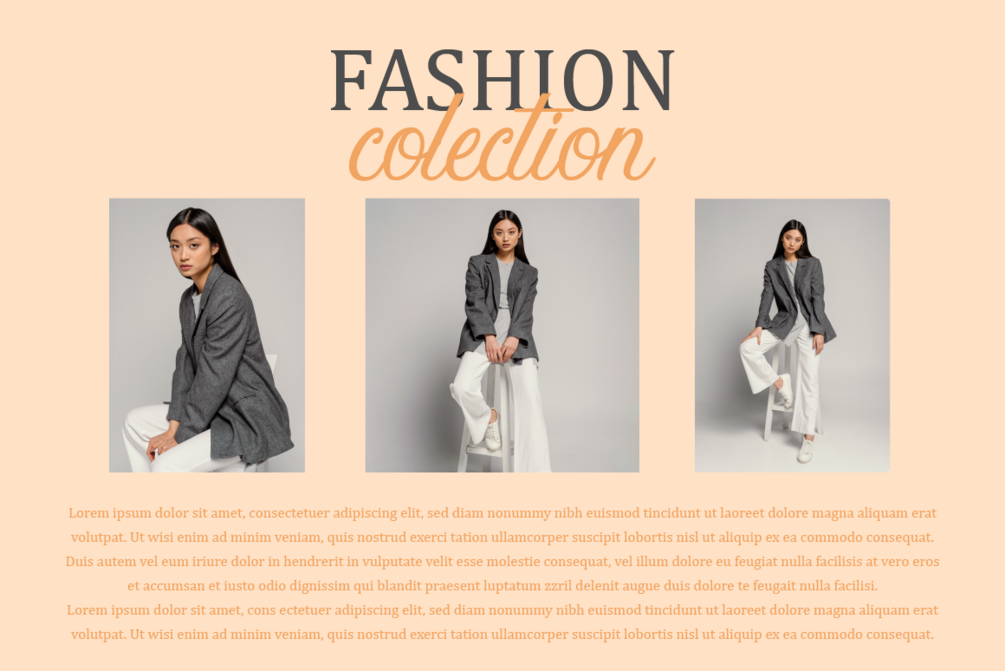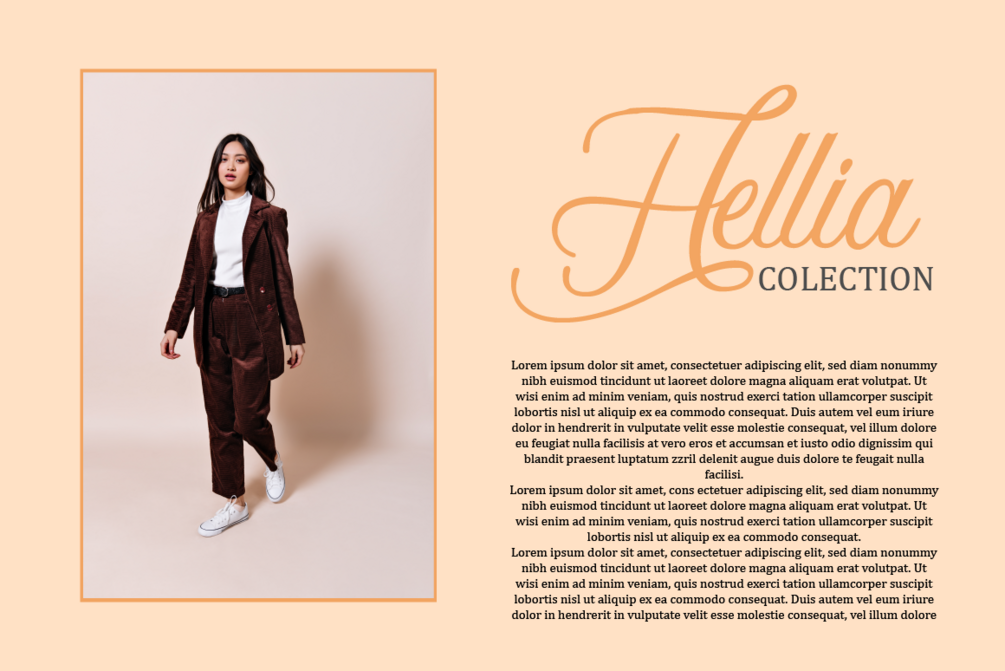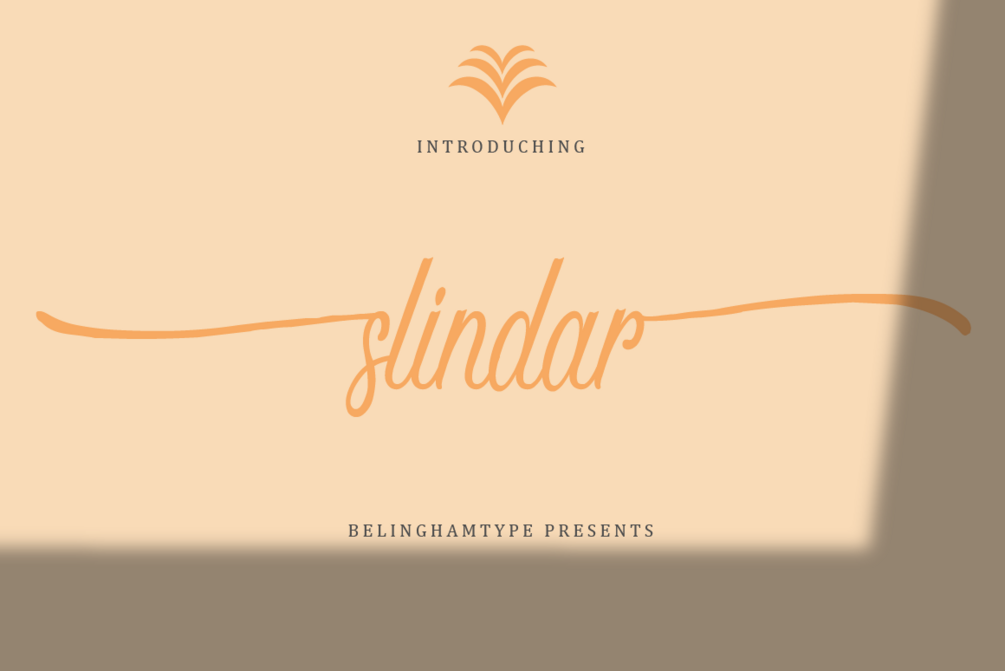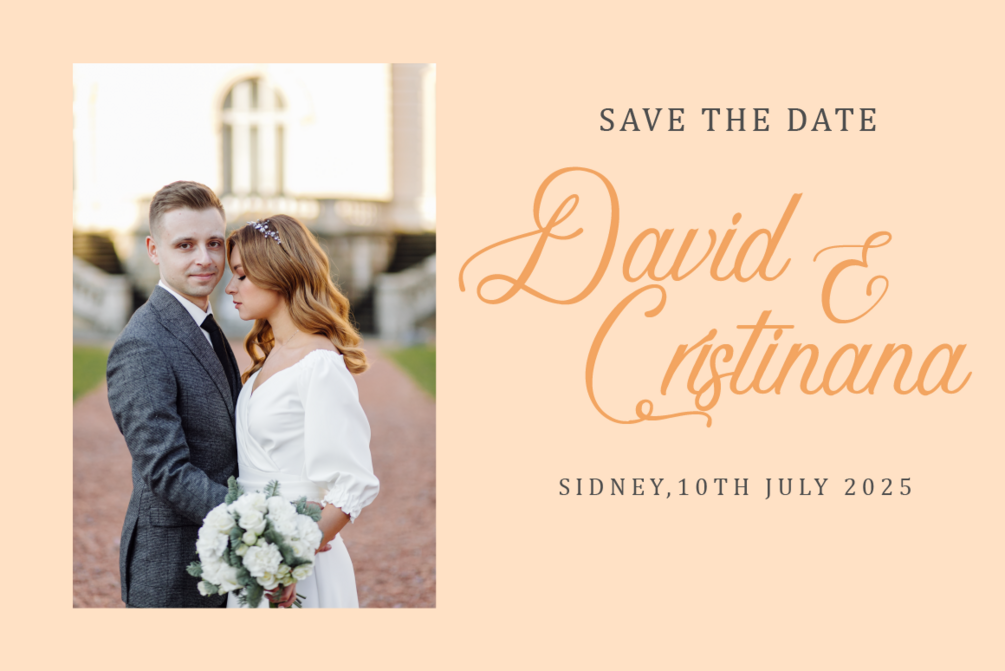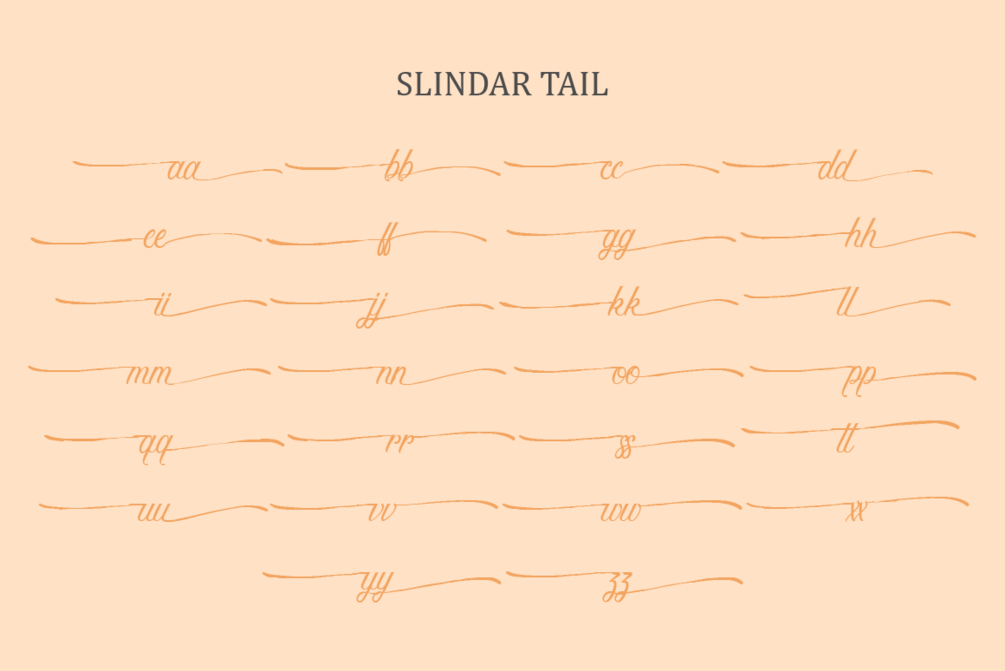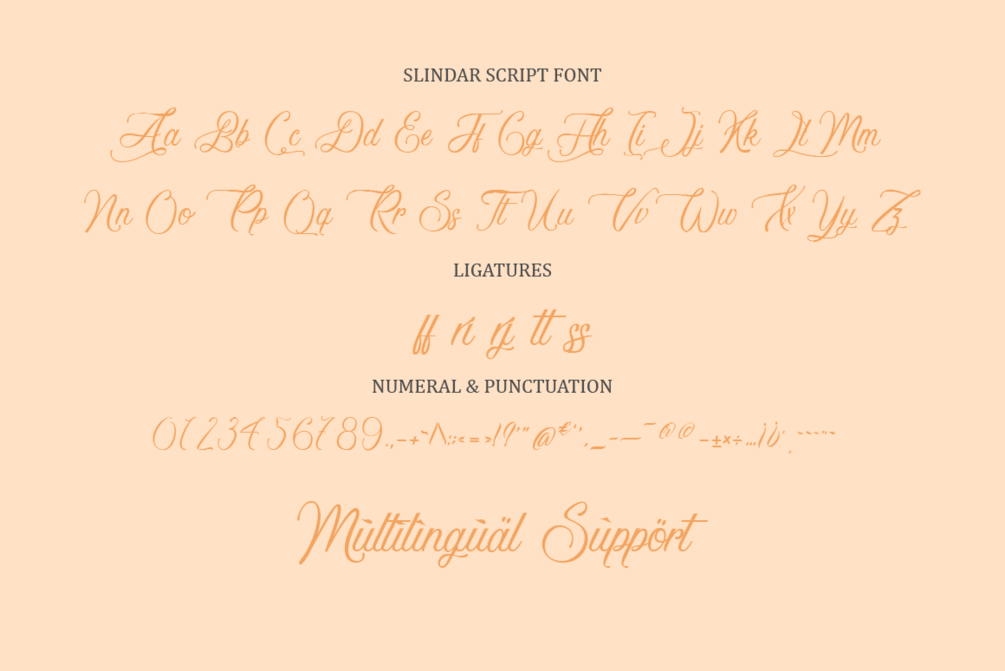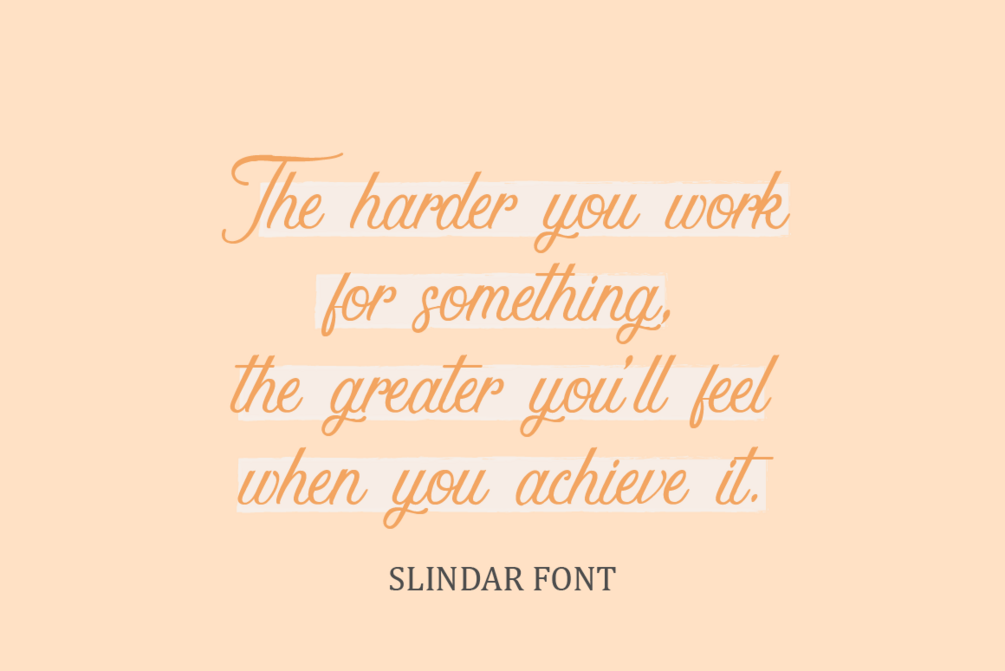
Slindar
Slindar is handwritten script font. This font would be perfect for photography, watermarks, social media posts, advertisements, logos & branding, invitations, product design, labels, stationery, product packaging, special events, and other projects.